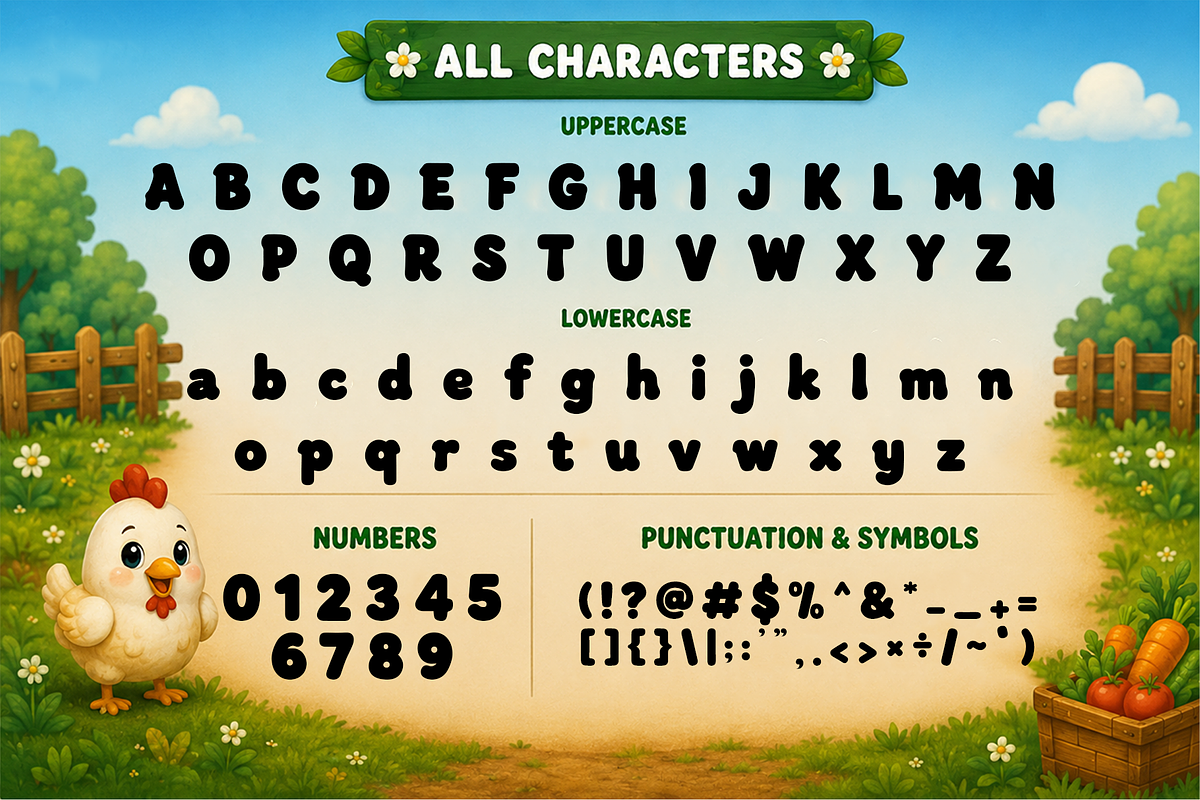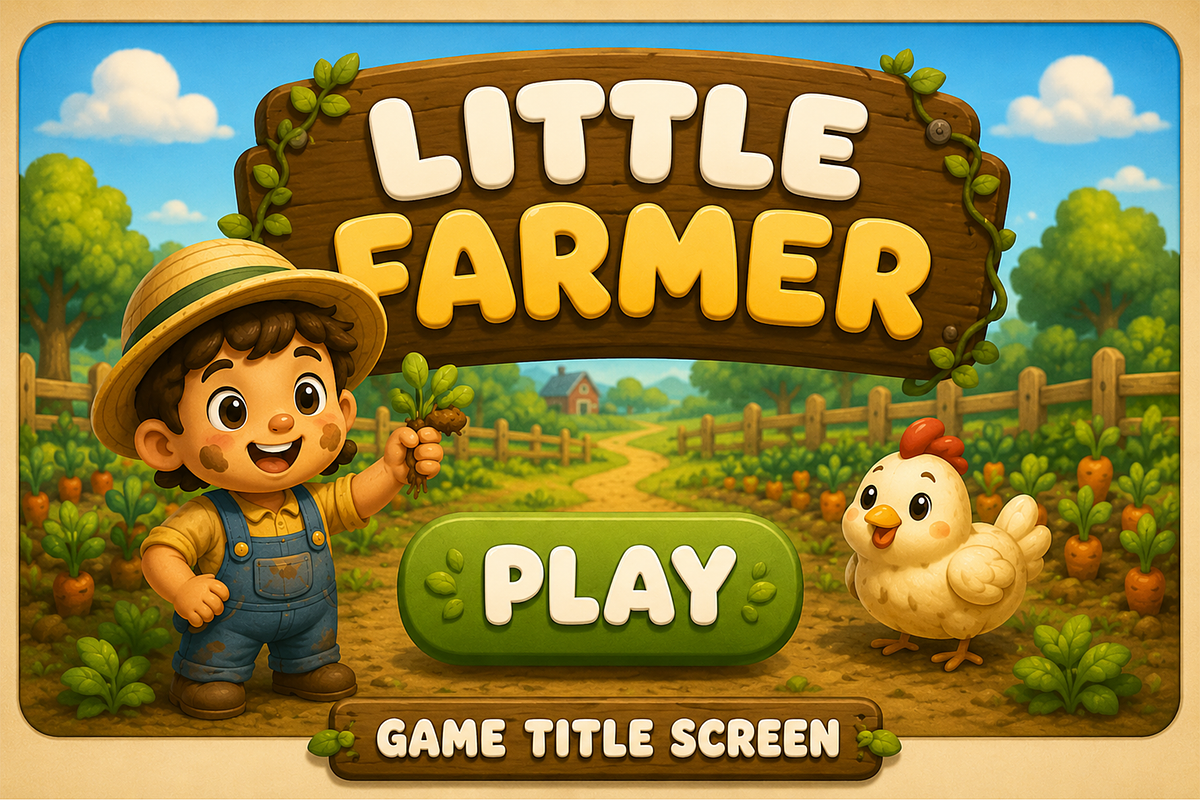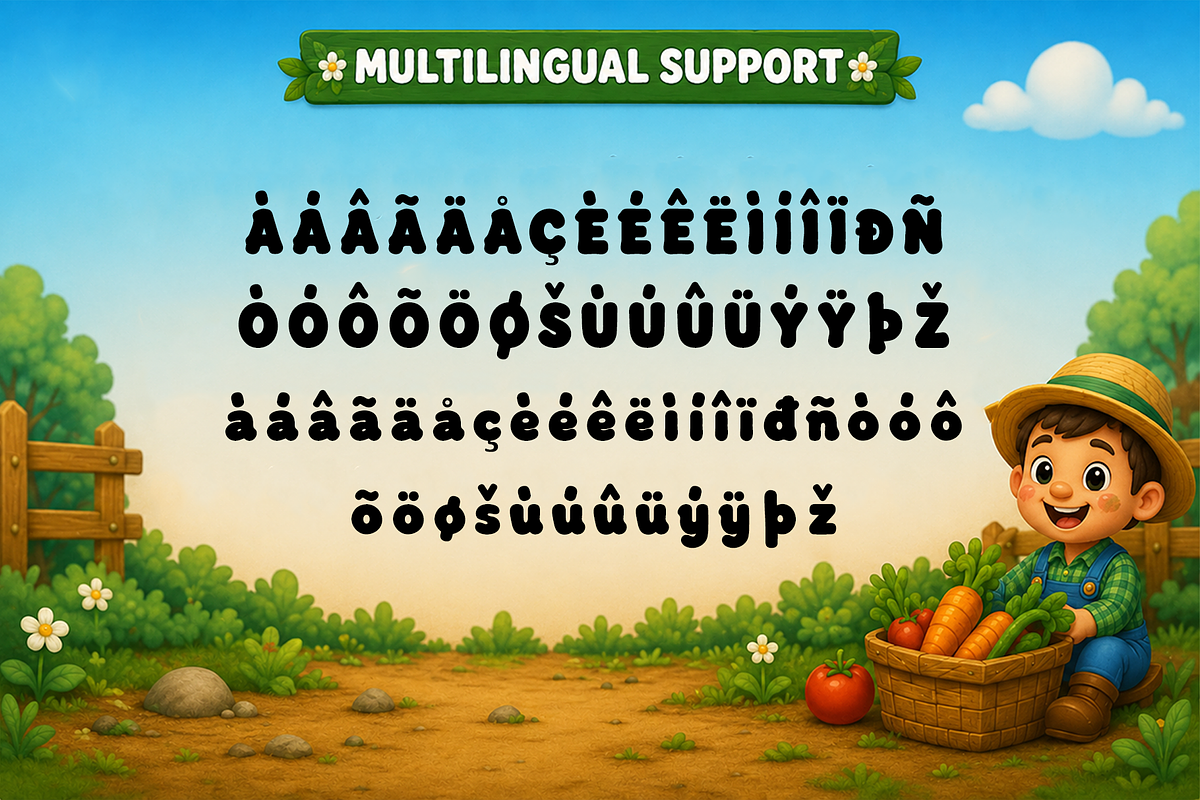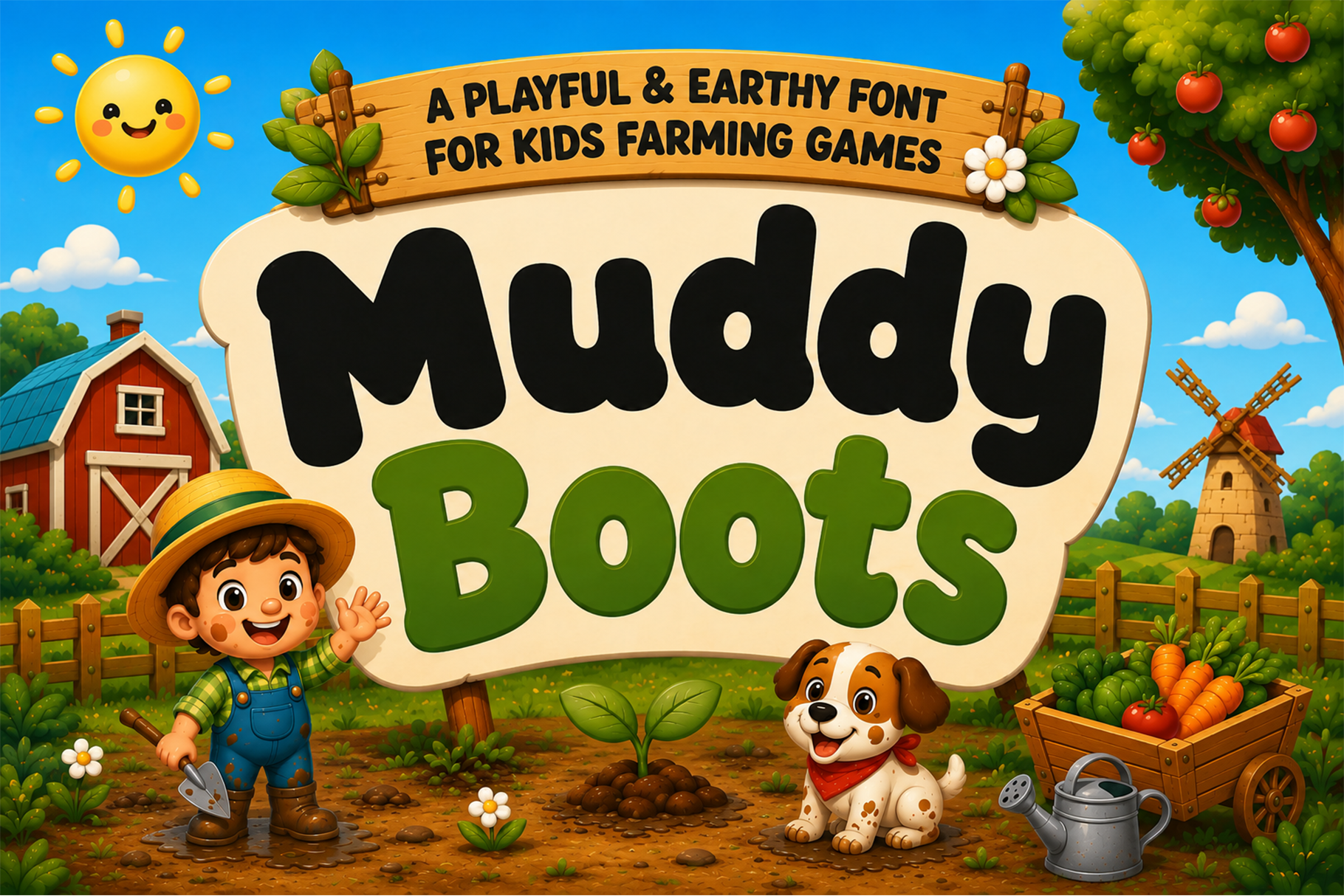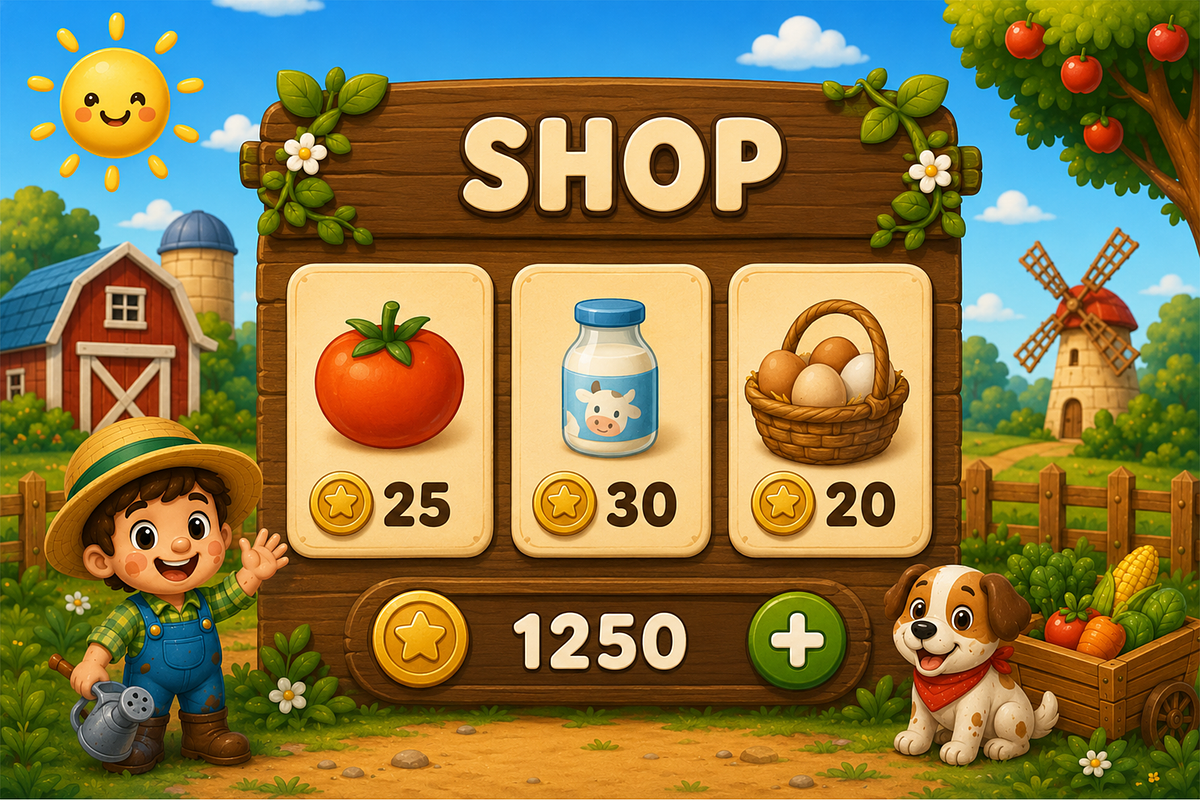
Muddy Boots - Playful Kids Farm Font
Meet Muddy Boots, a playful kids display font inspired by joyful days on the farm, gardening adventures, and the excitement of outdoor play. With its chunky rounded letterforms, soft organic curves, and cheerful personality, this typeface brings warmth and imagination to every design. Its friendly appearance is perfect for creating projects that inspire curiosity, learning, and fun.
Whether you're designing a colorful mobile game, creating farm themed branding, producing educational materials, or building cheerful marketing assets, Muddy Boots delivers a wholesome and playful style that stands out across both print and digital media. Complete with uppercase and lowercase letters, numerals, punctuation, multilingual support, and carefully designed glyphs, this font offers everything needed to create engaging, family friendly designs.